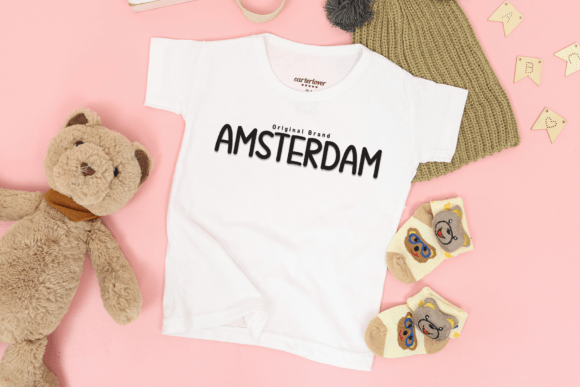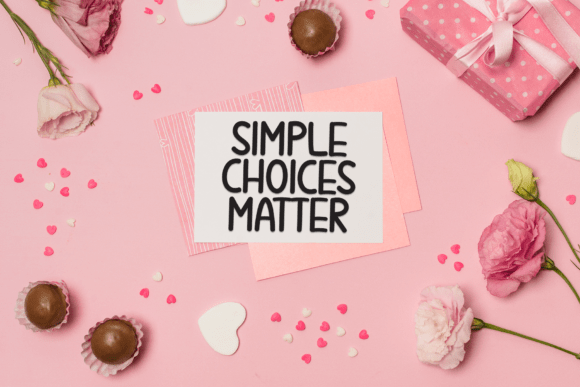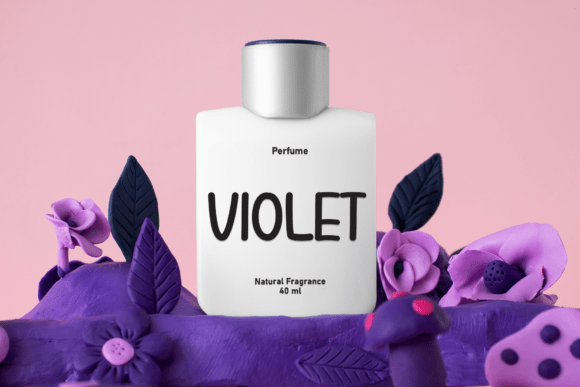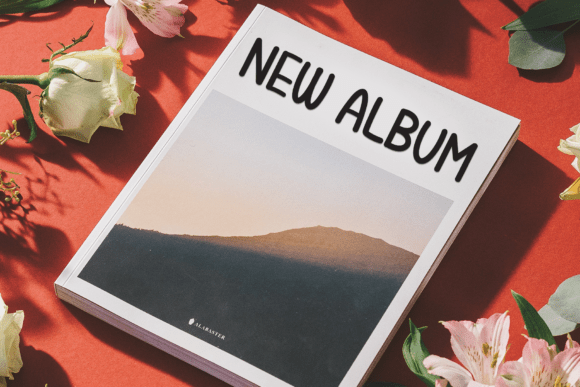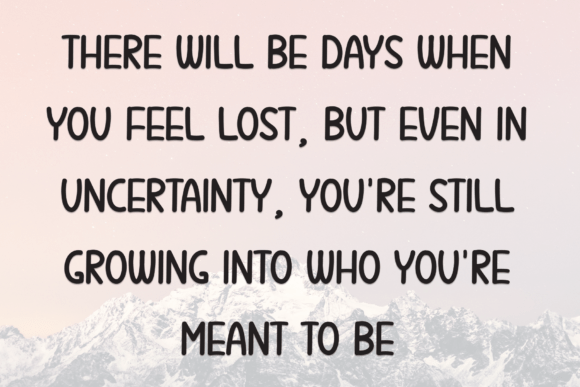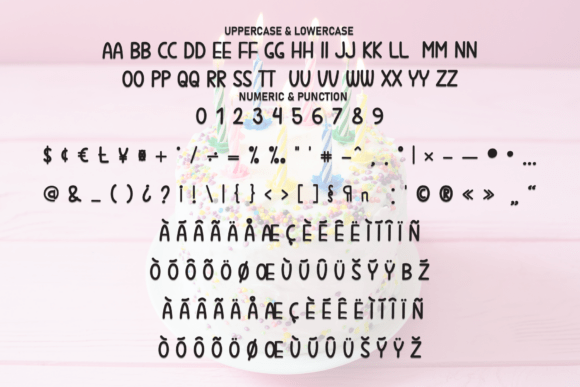
The Sweetest Way to Celebrate: Introducing Cake Birthday Font
Do you remember the first time you designed a birthday invitation for a loved one? The excitement of choosing the perfect font to capture the joy and love of the special day? For many of us, it’s a moment that sparks our creativity and sets the tone for a beautiful design. And that’s exactly what the Cake Birthday Font is all about – bringing warmth and clarity to your projects, making every message feel genuine and inviting.
This casual and neat display font is designed to make your designs stand out. With its clean structure and approachable style, Cake Birthday Font is perfect for branding, headlines, and everyday designs. Whether you’re a seasoned designer or just starting out, this font is a valuable addition to your toolkit, offering readability and charm that’s sure to impress.
Cake Birthday Font Key Features
- Unique Characteristics: The Cake Birthday Font features a playful, handwritten design with bold and colorful elements, making it perfect for birthday-themed projects.
- Font Style: The font is available in uppercase and lowercase letters, with various punctuation marks and numbers, offering versatility for creative designs.
Cake Birthday Font Review
Overall, I think the Cake Birthday Font is a cute and playful choice for birthday-themed designs. Here’s what I like about it:
- ✨ It’s easy to read and understand, even at small font sizes.
- ✨ The font is highly customizable, allowing you to adjust the color, size, and spacing to fit your design needs.
- ✨ It’s available in a range of styles, including bold and italic, which adds to its versatility.
- ⚠️ The font may not be suitable for formal or professional designs, as it’s quite casual and playful.
- ⚠️ Some users may find the font too cutesy or juvenile, which could be a turn-off for certain designs.
Overall, I think the Cake Birthday Font is a fun and creative choice for birthday-themed designs. While it may not be the best fit for every project, it’s a great option for those looking for a playful and eye-catching font.
The Cake Birthday Font is ideal for creating whimsical and playful designs, such as:
- Birthday invitations and cards
- Party decorations and signage
- Photobooth props and graphics